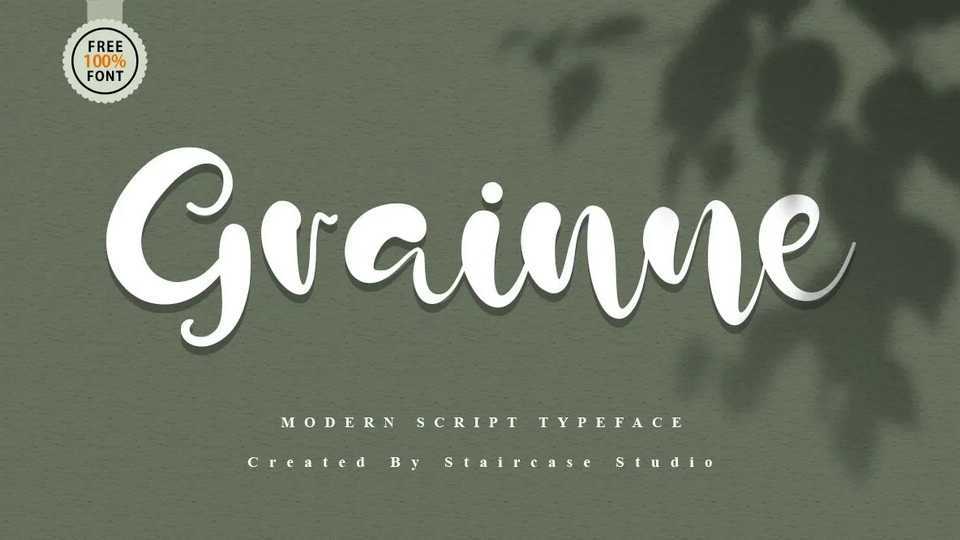
Download Grannie font, a modern handwritten typeface. With its casual hand crafted style, Grannie brings classy and natural look.
Designer: Staircase Studio